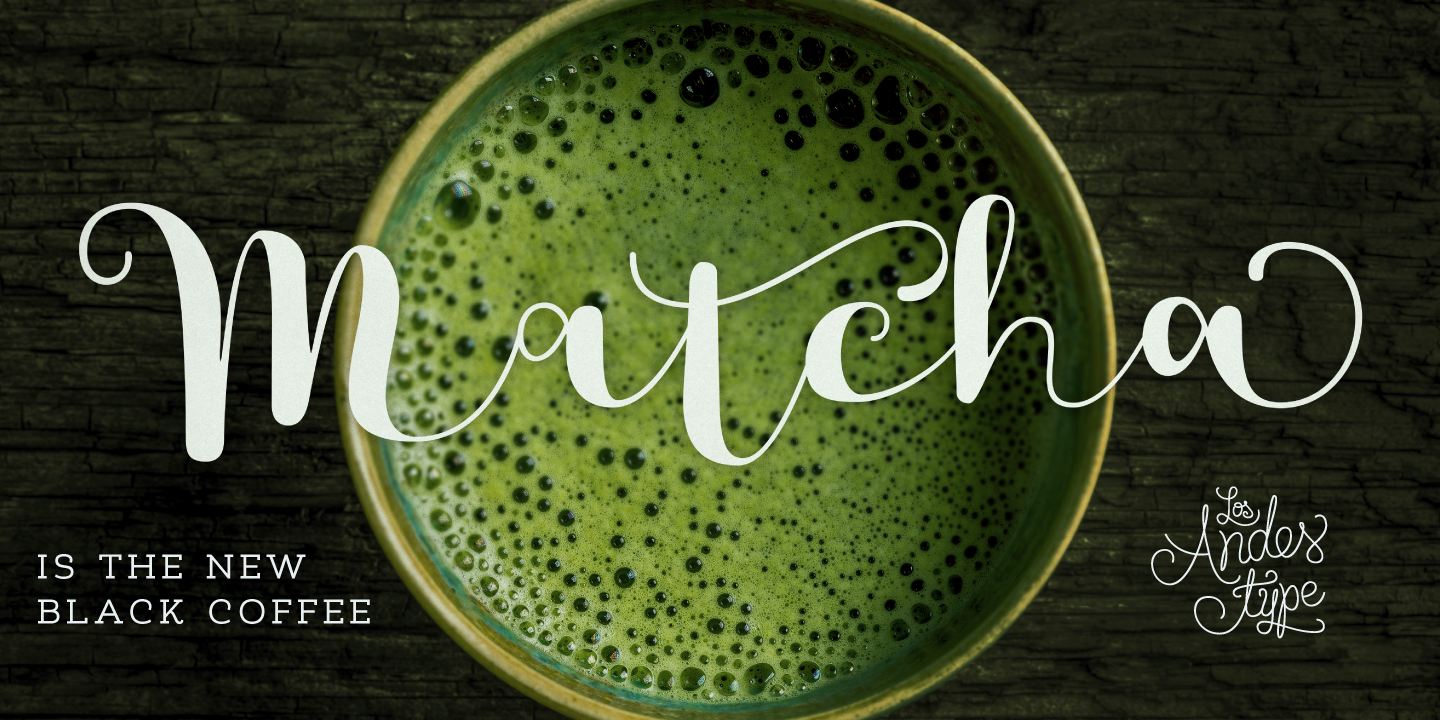
Matcha Script (1 font)
From Los Andes Type
Matcha consists of a stable, very friendly Slab face and a calligraphy Script with a handmade style: spontaneous and fickle with some reverse-contrast alternative characters. Can you guess who is the designer behind each style?
The duo contains OpenType features and is perfect for labeling natural products, cookbooks, magazine photography, fashion & beauty magazines covers, health & fitness publications, and more. For both print and digital communication.